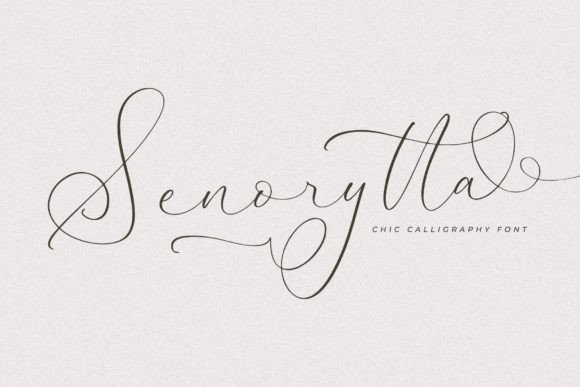
Brace yourself to be awestruck by Senorytta, a script font family that exudes elegance and charm. This masterpiece crafted by Storytype Studio is the epitome of sophistication, beckoning you to embark on a journey of creativity and self-expression. Senorytta's allure lies in its captivating curves and fluid strokes, reminiscent of a graceful dance across the digital canvas. It's a font that speaks volumes, promising to elevate your designs to new heights of beauty and distinction.
Senorytta's versatility is as boundless as your imagination. Its inherent charm makes it the perfect choice for an array of projects, from elegant logos and book covers to captivating fashion designs and heartfelt quotes. Its adaptability extends to both personal and professional endeavors, allowing you to infuse a touch of sophistication into every aspect of your creative pursuits.
With Senorytta as your creative companion, you'll find yourself captivated by its ability to transform ordinary words into captivating works of art. Its presence commands attention, ensuring that your designs stand out from the crowd. Whether you're a seasoned designer or just starting your creative journey, Senorytta will effortlessly elevate your creations, leaving a lasting impression on your audience.
But Senorytta is more than just a font; it's an experience. Its luxurious aura adds a touch of glamour to your projects, making them shine with an air of exclusivity. Its timeless beauty defies trends, ensuring that your designs remain relevant and captivating for years to come.